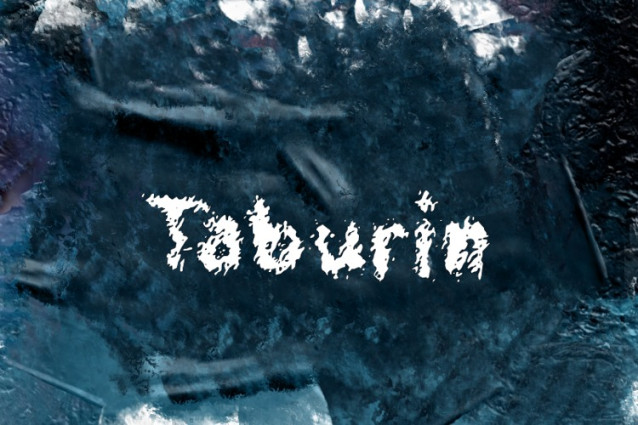
Taburin Font
Taburin Font,  Perfectly fit for branding, logo, wedding things, greeting cards, fashion, lookbook, marketing promotion, anytime you want to look fancy elegant but still casual.